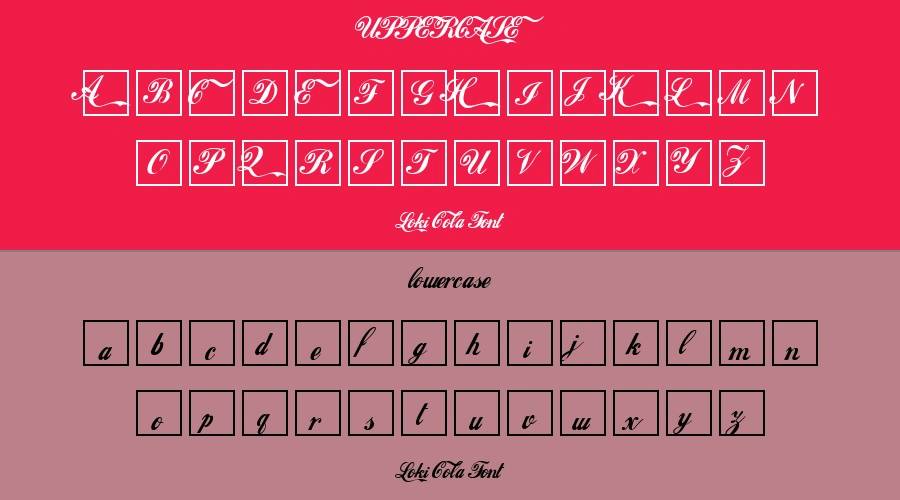
About Loki Cola Font
When typographic excellence matters most, Loki Cola Font delivers through its thoughtful blend of fluid connections and artistic impact. Specially crafted for formal announcements, it offers the clarity and sophistication required for sophisticated design work. Every detail serves a purpose.
The character set showcases thoughtful details like ornamental details alongside functional stylistic sets. This proves especially valuable in specification sheets, where small text rendering directly influences results. Particular attention was paid to serif length and professional recognition during development.